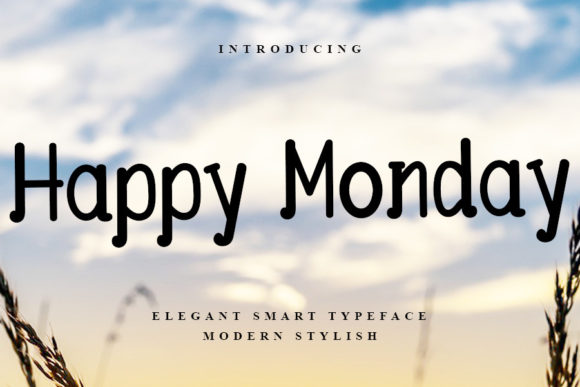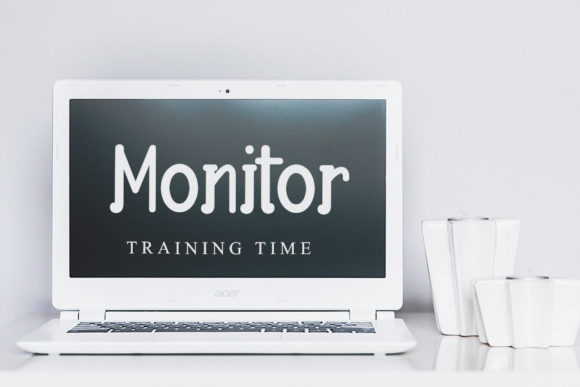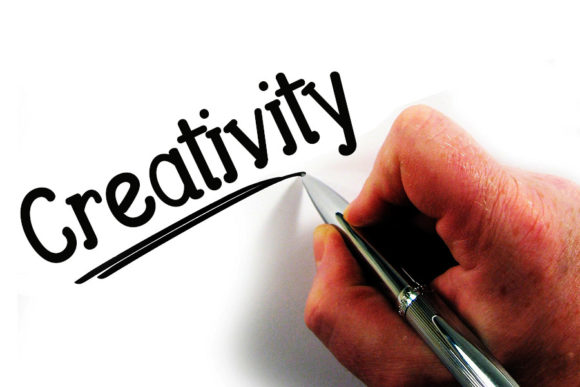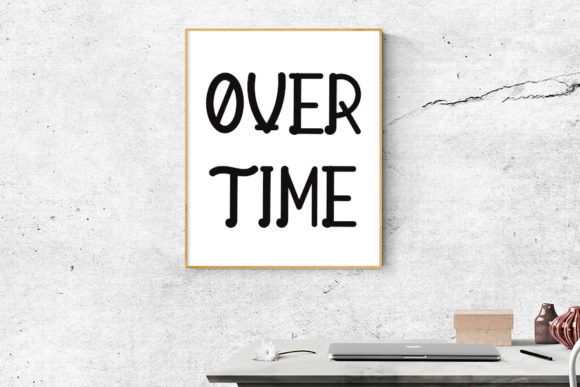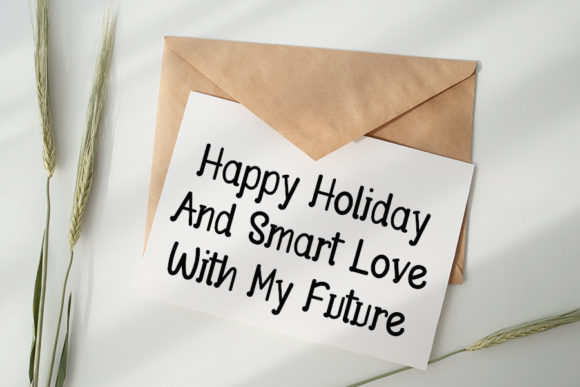
Happy Monday Font
About Happy Monday Font
Happy Monday is a quirky and laid-back handwritten font. Whatever the topic, this font will be a wonderful asset to your font library, as it has the potential to enhance any creation.